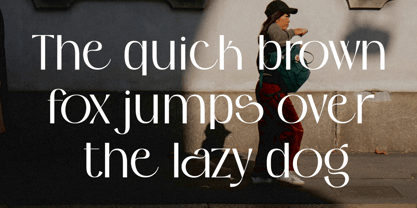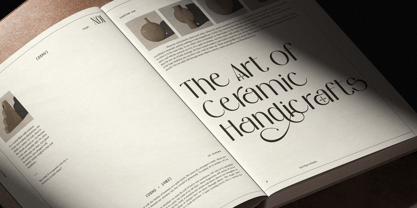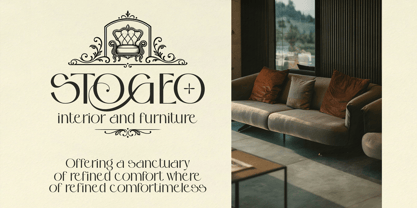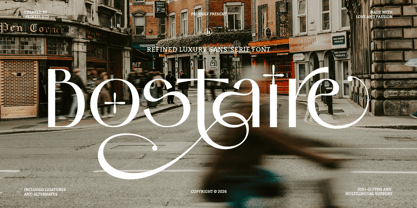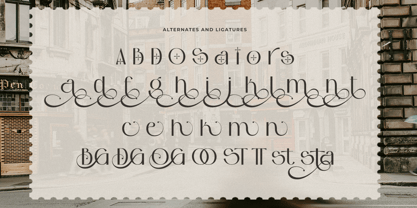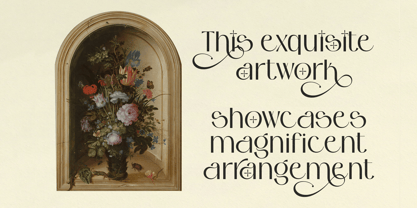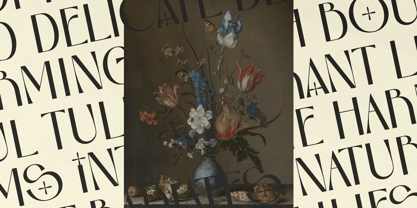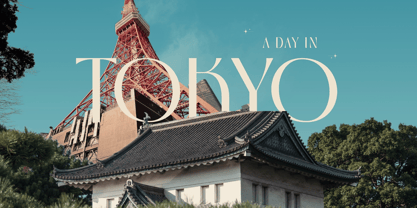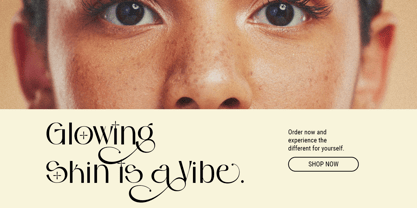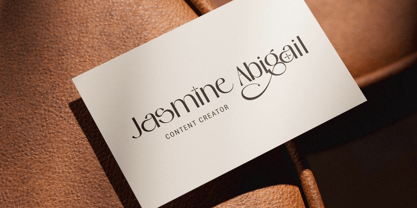
Bostaire
by Heinzel Std
The Bostaire Font Family was designed by Nofi Sofyan Hadi and published by Heinzel Std. Bostaire contains 1 styles. More about this family
Bostaire is a refined luxury sans-serif font that blends timeless elegance with contemporary sophistication. Featuring graceful curves, high-contrast strokes, and distinctive decorative alternates, Bostaire brings a premium aesthetic to every design project. Its unique character shapes create a memorable visual identity while maintaining exceptional readability and versatility.
Designers: Nofi Sofyan Hadi
Foundry: Heinzel Std